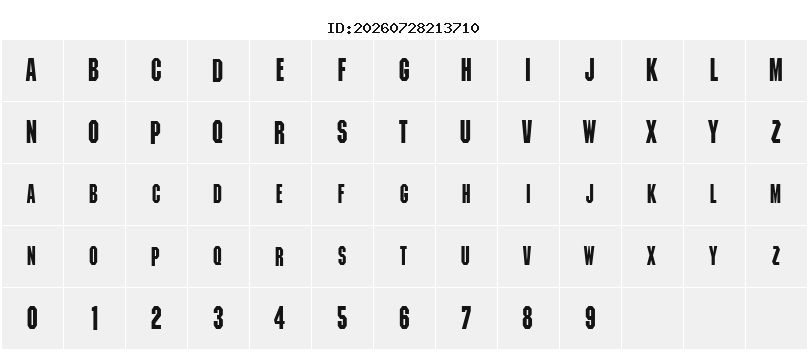
MetalEncasementCondensed.ttf is a modern, elegant sans-serif font designed for ultimate readability and visual harmony. Perfect for branding, headlines, web design, and print materials.